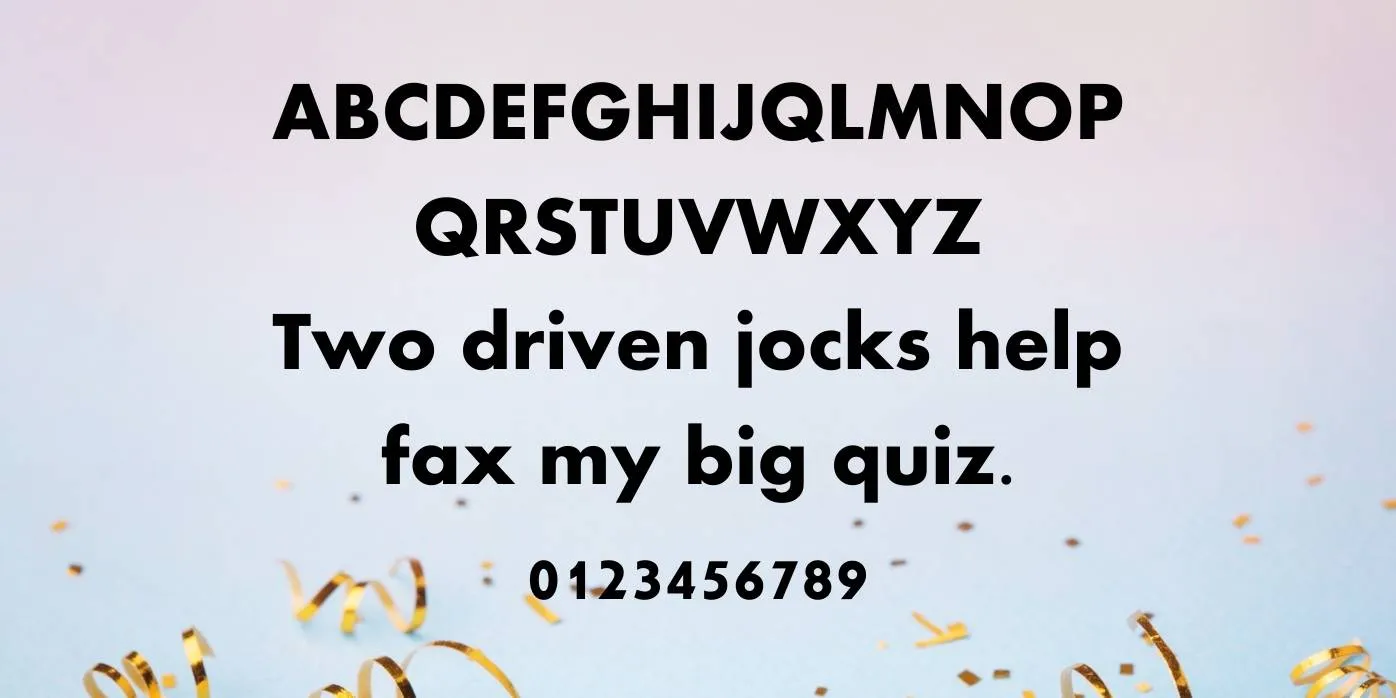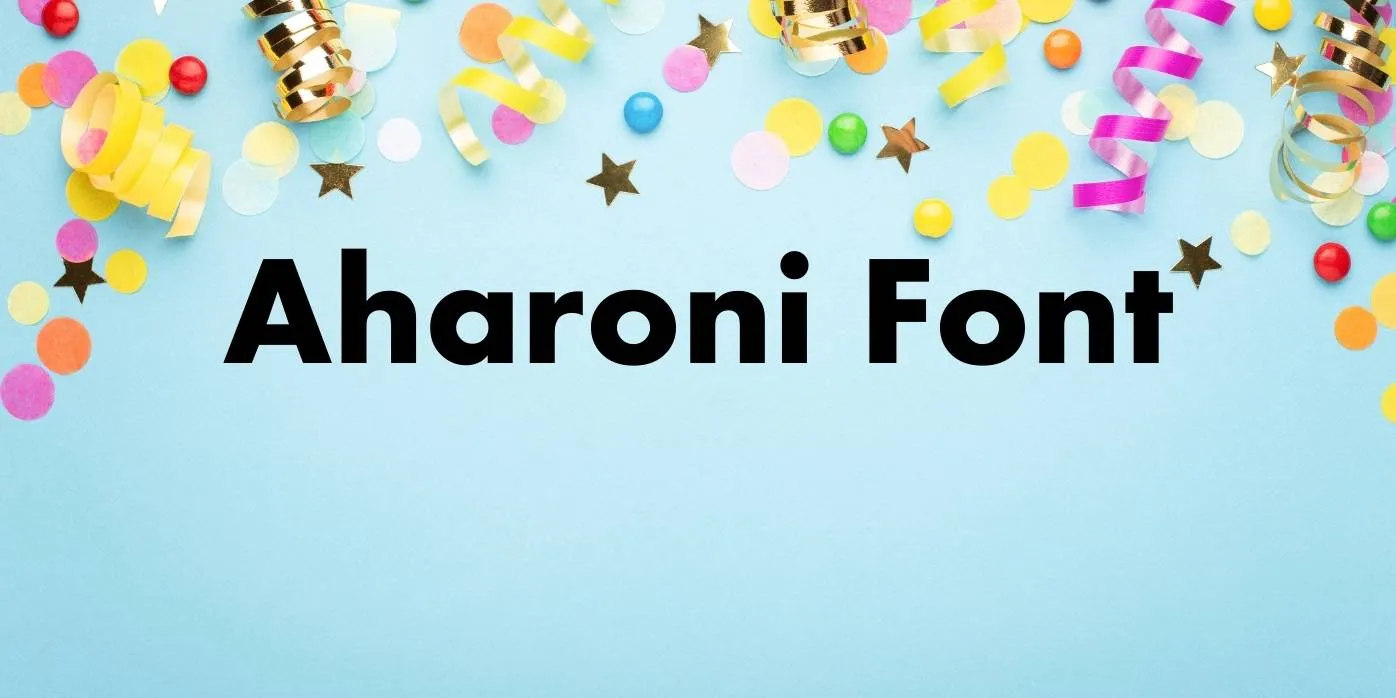
Aharoni Font
Here, we are introducing a stunning and clean font family known as Aharoni Font. It belongs to the Sans- Serif typeface. This amazing typeface was designed after soo much work and by a combination of Monotype Corporation and Kivun Computers Ltd., This classic font has different weights and various varieties of styles almost 22 styles are available. Some of the famous styles of this typeface are Regular, Bold Medium which increases its power.
This google font is mostly used for Microsoft products. This typeface is made more popular because of its more than 242 glyphs. This perfect typeface is frequently used for various types of Microsoft Window versions like Window 10. This outclasses font family gives a fascinating and generous look to all of your designs and projects.
You can use this typeface and achieve the attention and interest of users. This font is best for designing in adobe photoshop. This stylish typeface provides the facility of an online tool generator that can make your designs more impactful and flawless. It is used almost all over the world because of its stylish and wonderful characters.
By using this font with the pairing of Lulo Clean Font its features show more best results. Closest to this font family is Trajan Pro Font and Hassar Bar Font.